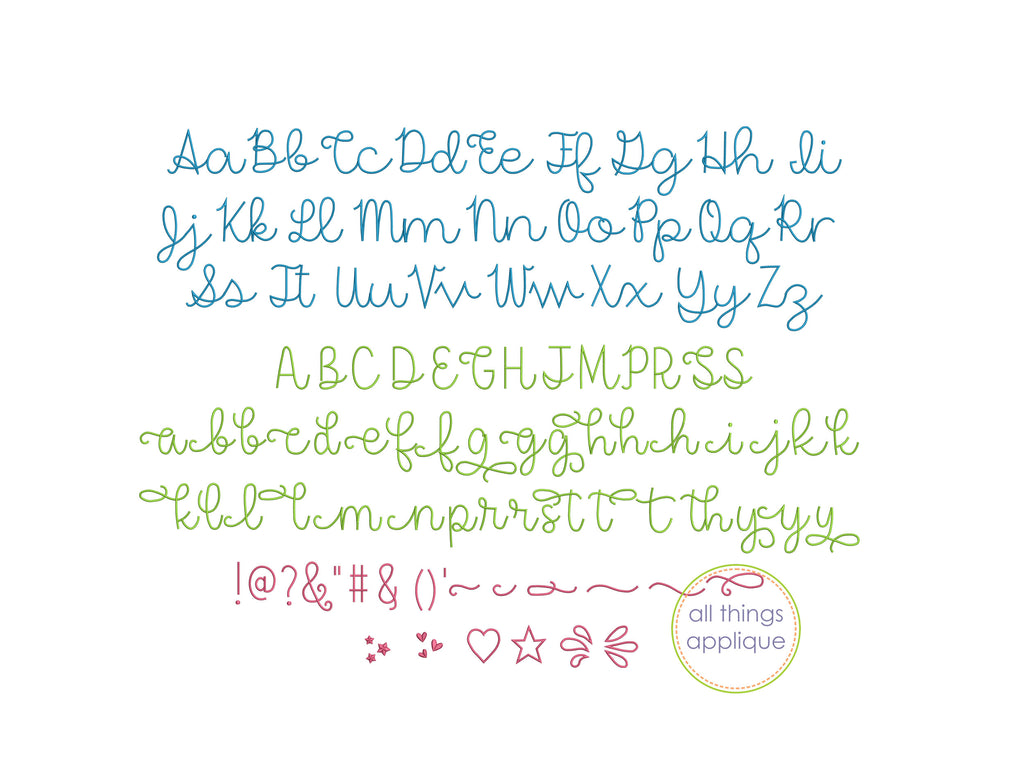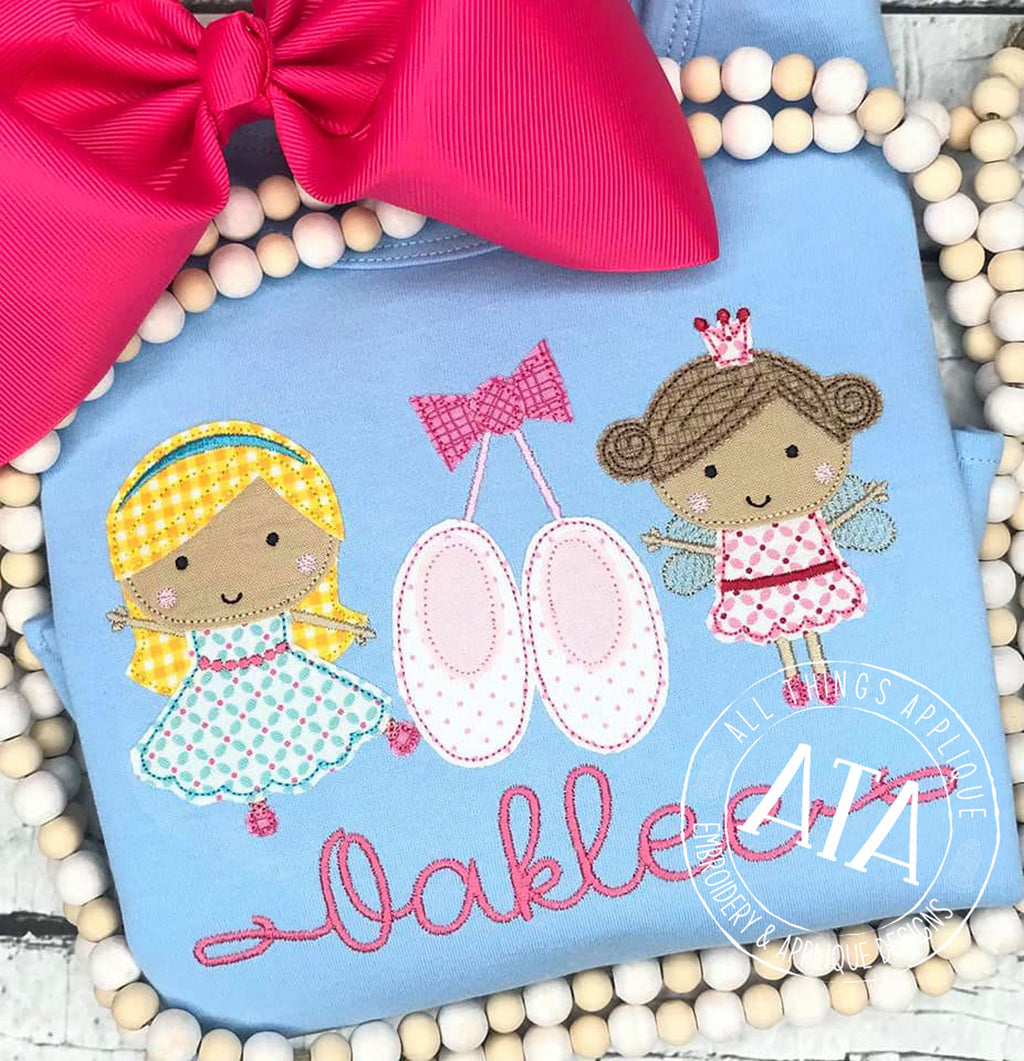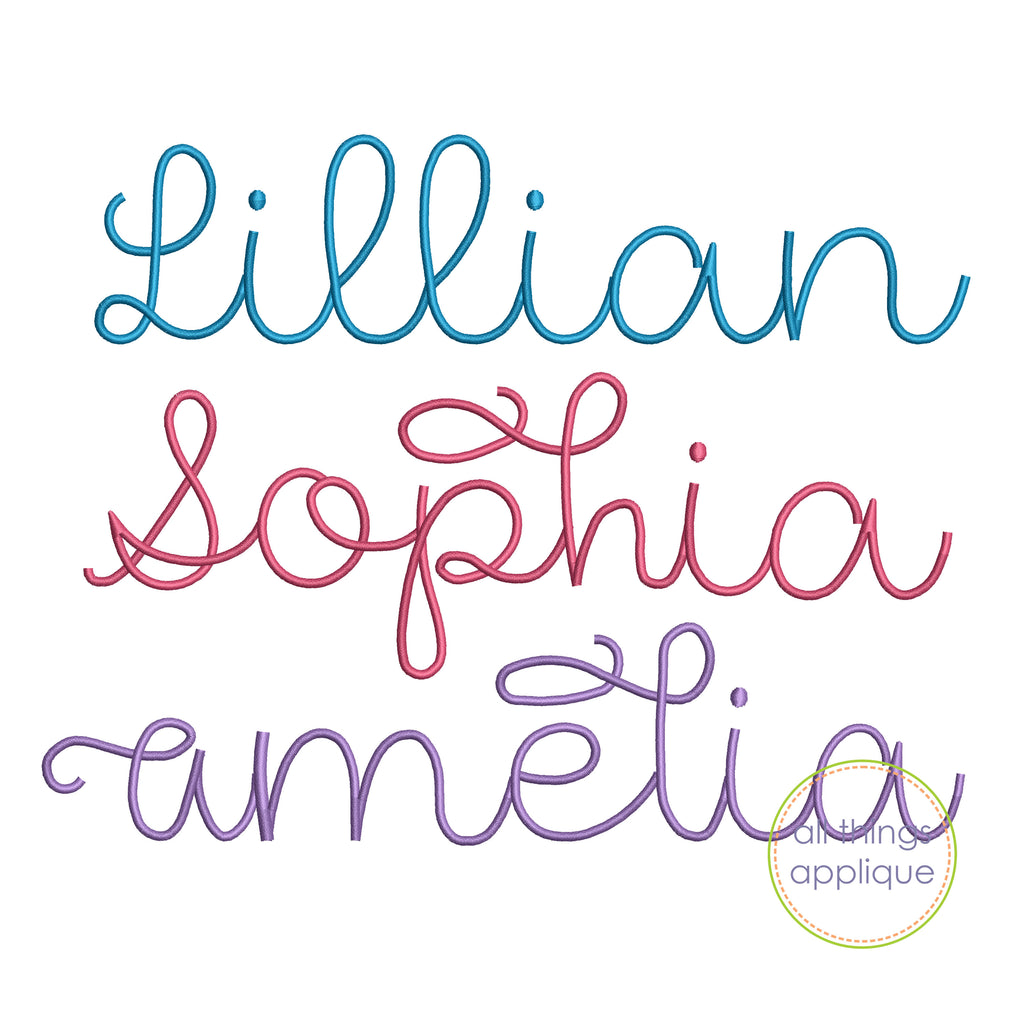
Dear Agatha Satin Stitch Embroidery Font
Satin Stitch Embroidery Font with Bonus Characters
Our Dear Agatha font has so many options!
You will receive a standard alphabet Aa - Zz in 3 sizes: 1", 1.5" and 2".
PLUS 12 alternate capital letters and alternate letters for 19 lowercase letters!
PLUS fun shapes and symbols which make this alphabet perfect for any project!
This is such a sweet font and a must have for your embroidery collection!